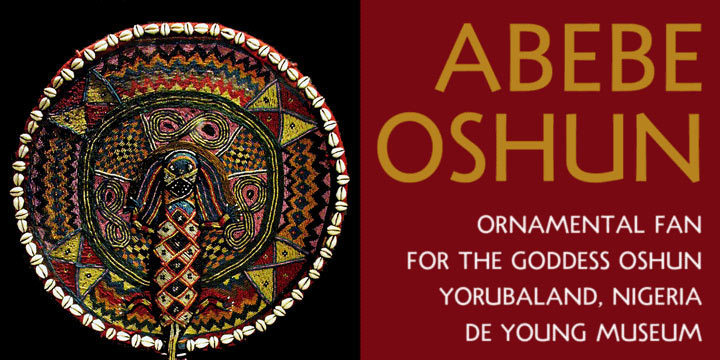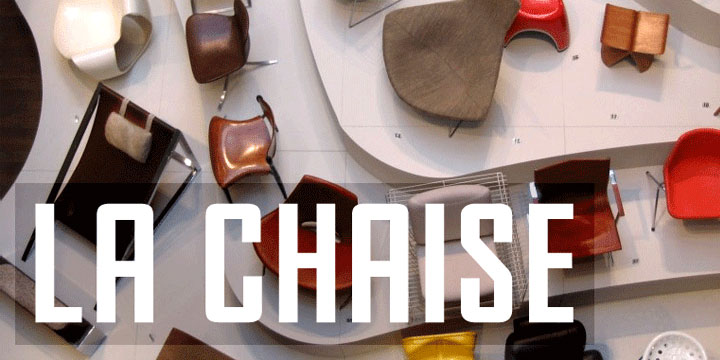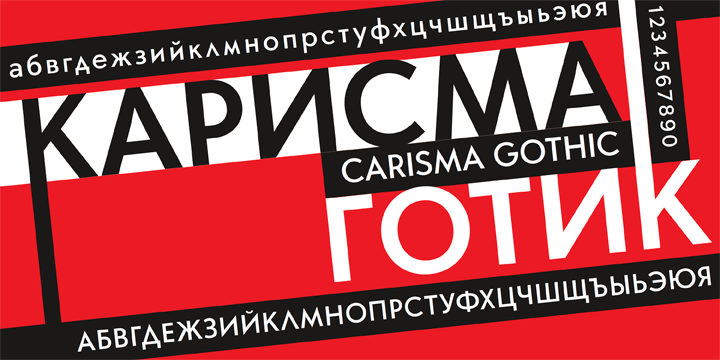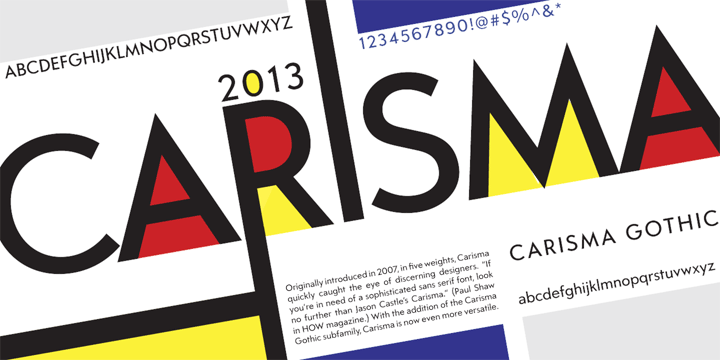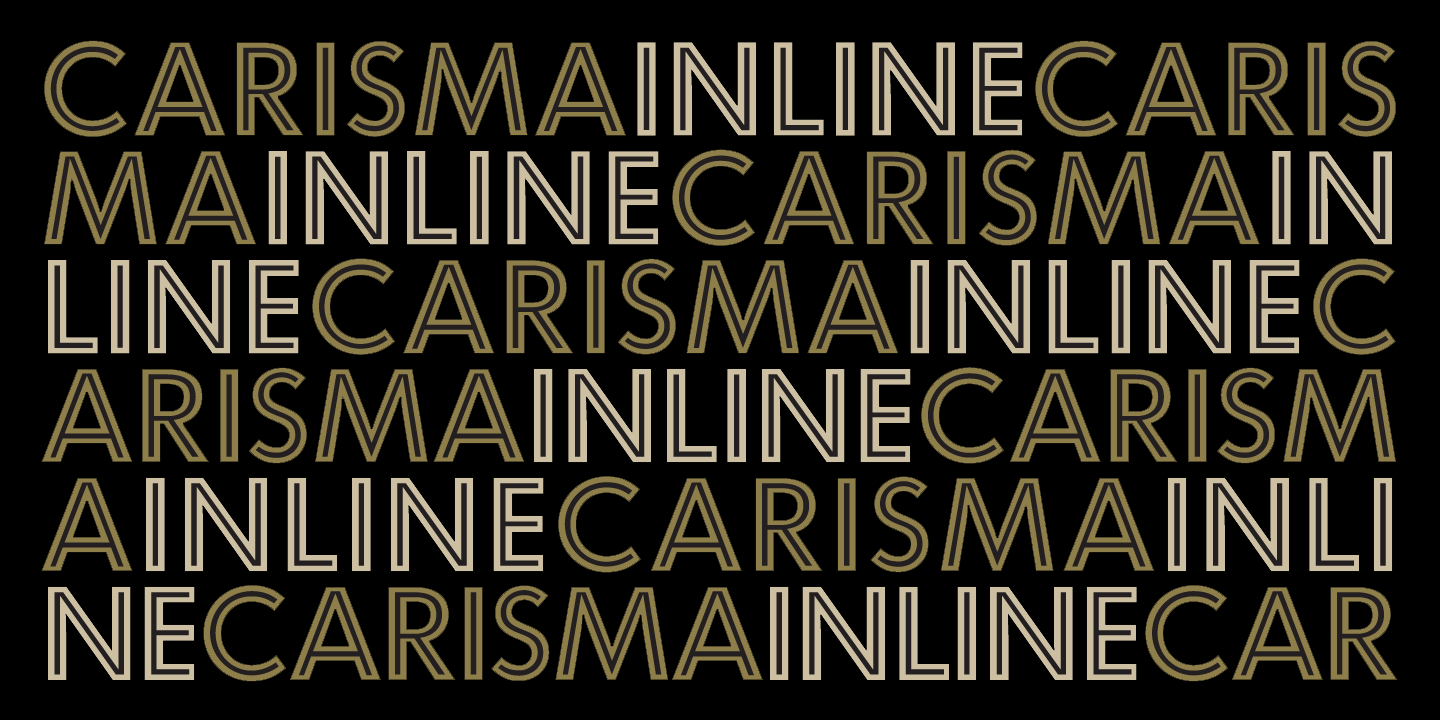
Test Drive  Originally designed by American type designer Morris Fuller Benton in 1933, Agency Gothic is a wonderful, narrow, squarish art deco typeface.
Originally designed by American type designer Morris Fuller Benton in 1933, Agency Gothic is a wonderful, narrow, squarish art deco typeface.
Test Drive  Carisma™, a CastleType Original, is the perfect typeface for an understated, modern, sophisticated look. All weights of Carisma include small caps and oldstyle numerals. See also Carisma Gothic. |
Test Drive  Carisma™, a CastleType Original, is the perfect typeface for an understated, modern, sophisticated look. All weights of Carisma include small caps and oldstyle numerals. See also Carisma Gothic.
Test Drive  Carisma™, a CastleType Original, is the perfect typeface for an understated, modern, sophisticated look. All weights of Carisma include small caps and oldstyle numerals. See also Carisma Gothic. |
Test Drive  Carisma Inline is an uppercase-only addition to the family that supports most European languages, including those that use the Cyrillic alphabet; as well as Sanskrit transliteration and Yorùbá. See also Carisma and Carisma Gothic. |
With the release of the Gothic subfamily, Carisma is now an even more valuable addition to your typographic arsenal. Extensive language support. See also Carisma and Carisma Inline.
Zuboni Stencil is a bold, uppercase-only typeface based on a Russian design from around 1920 (original designer unknown). Its extensive character set supports most European languages that use the Latin or Cyrillic alphabets as well as modern (monotonic) Greek.